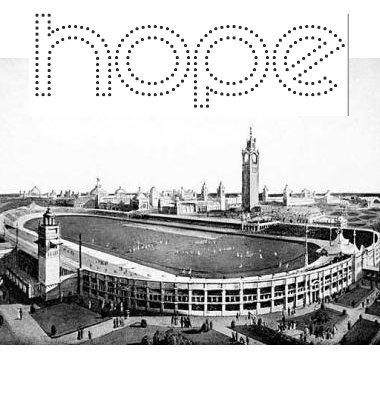
FS Olympic Spirit
kix
This is done under pressure of time. There will be some more alternate glyphs, but i got to leave the PC now :( Hope it's a well competitor though...
it's like the olympic rings have been reassembled and set ablaze to create these glyphs. very magical and great work. please don't forget your sample and this is surely a top contender.
I love this...I really like the e.
And yes, don't forget your sample!
Nice font!! Add a sample image to make it eligible for competition!
A beautiful bit of design.
better than having no sample, i guess...
It looks wonderful. 10/10
One cannot get any more olympic than this.
Congratulations! FontStruct Staff have deemed your FontStruction worthy of special mention. “Olympic Spirit” is now a Top Pick.
Nice :D
Just Perfect !! Great work !